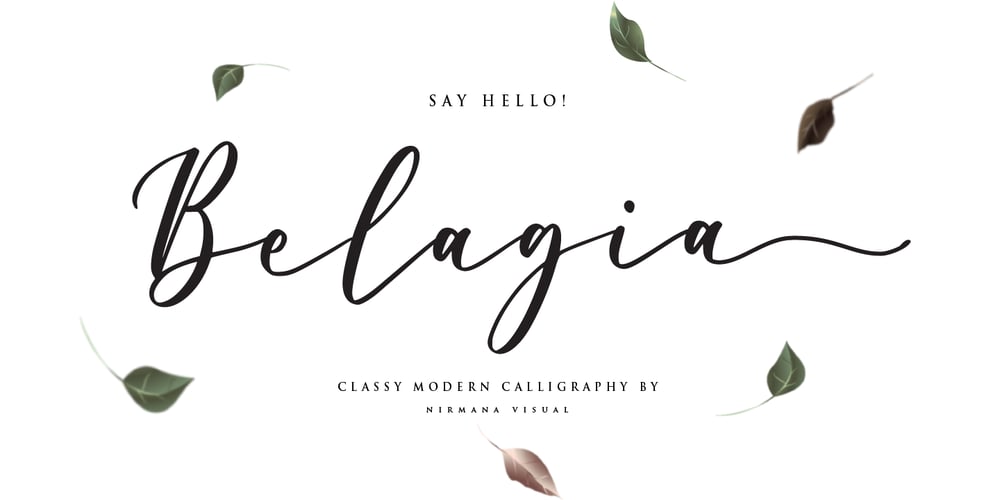
Belagia Font Family was designed by Sigit Dwipa and published by Nirmana Visual. Belagia contains 1 styles and family package options. Belagia is a beautiful script font carefully created with a touch of romantic essence. This is a beautiful combination of timeless elegance and authentic calligraphy, and includes beginning and ending swashes for the lowercase.